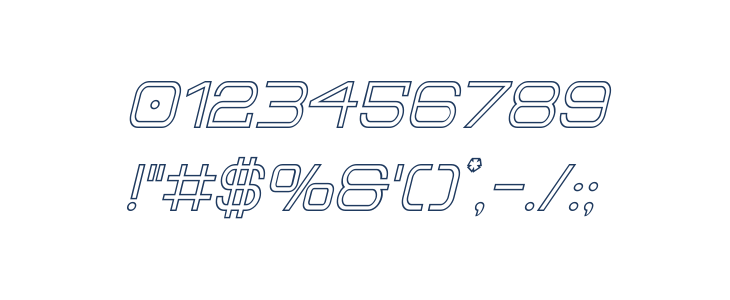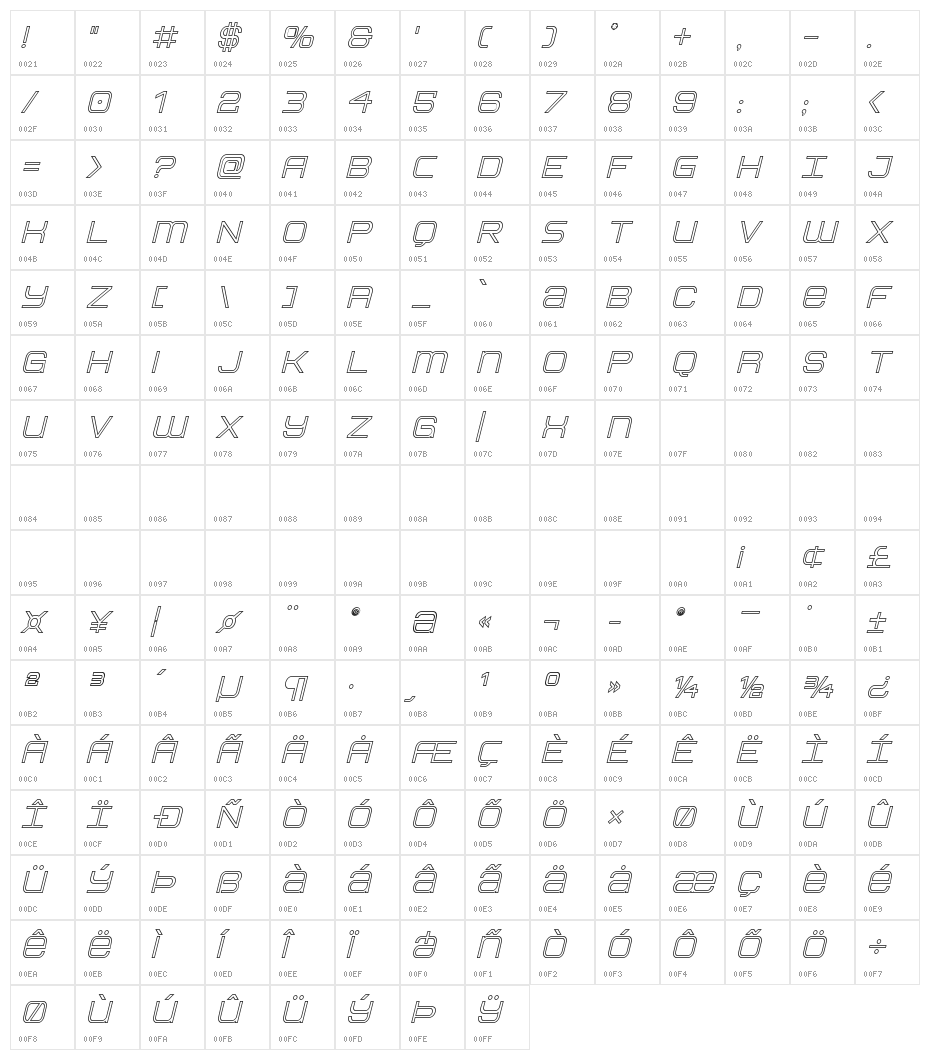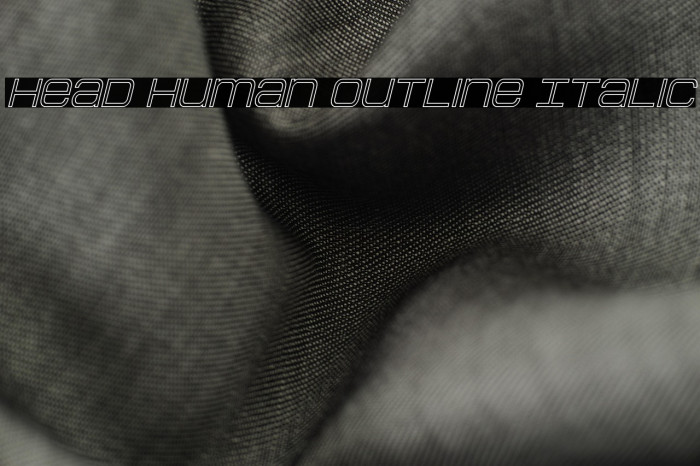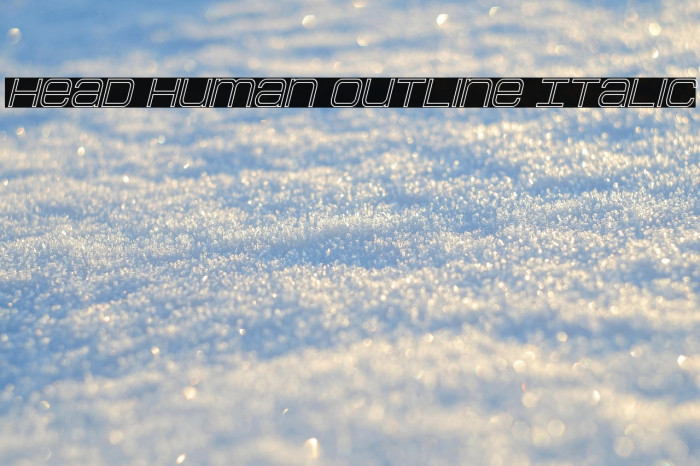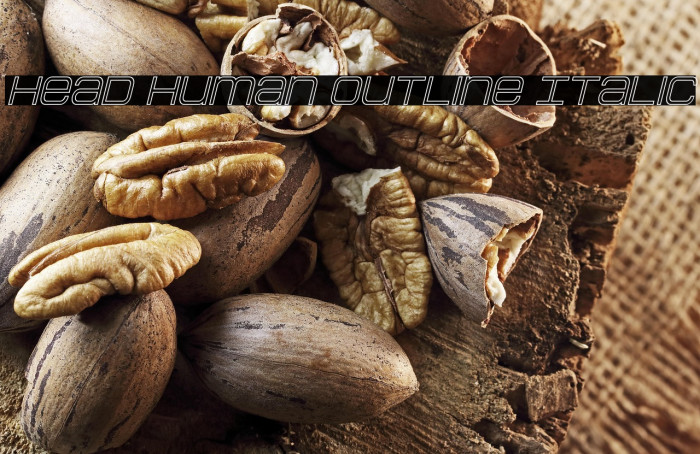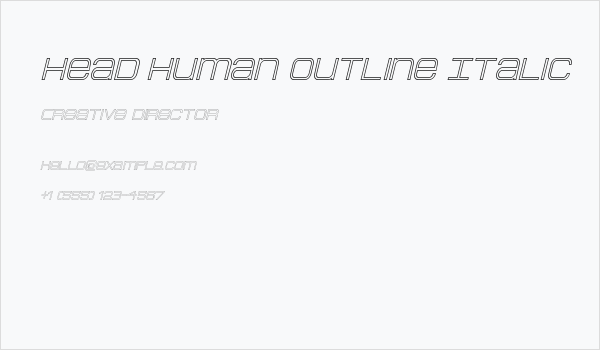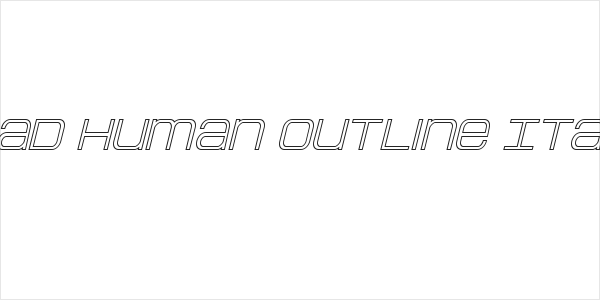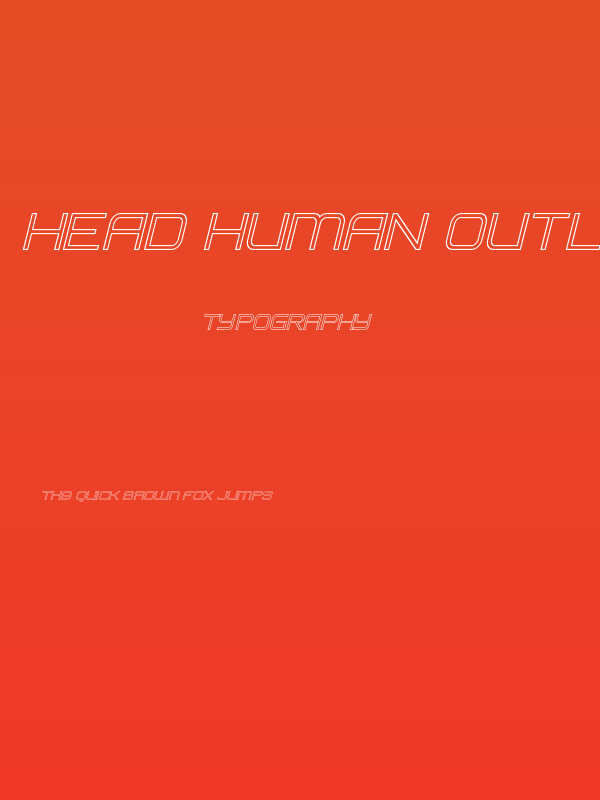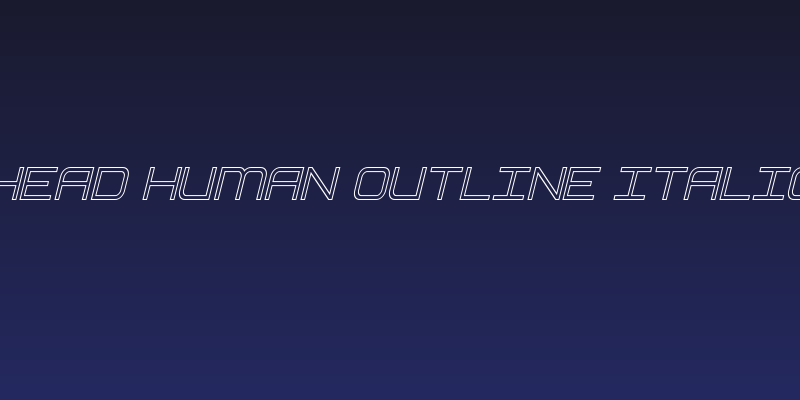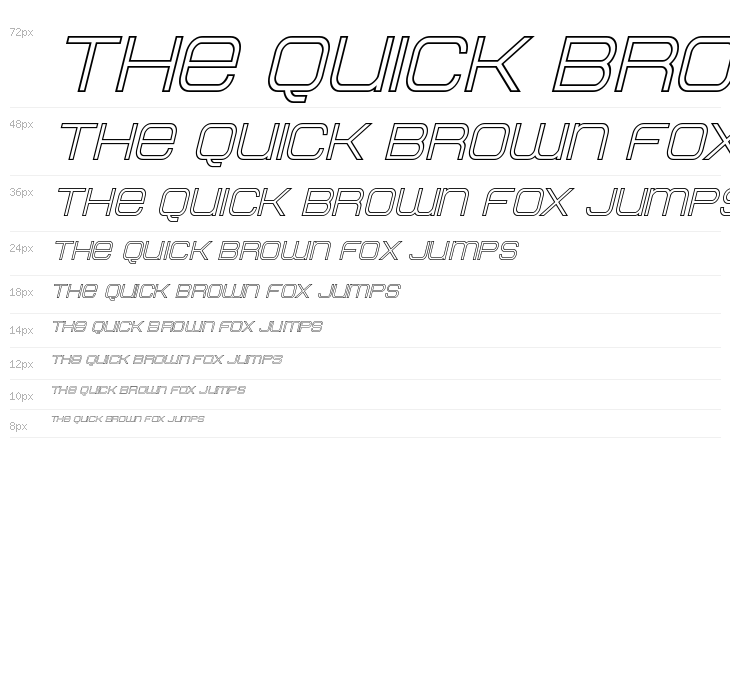
Head Human Outline Italic Font
Head Human Outline Italic Description
This font features a modern, geometric design with a distinct italic slant, giving it a dynamic and forward-moving appearance. The characters are outlined, creating a hollow effect that adds a sense of depth and dimension. The uppercase and lowercase letters maintain a consistent style, with clean lines and sharp angles. The numerals and special characters are designed to match the overall aesthetic, ensuring a cohesive look across all text. This font's unique outline style makes it stand out, making it suitable for creative and eye-catching designs.
| Proposed Projects | Ideal for futuristic branding, tech-related projects, posters, and digital media where a modern and distinctive look is desired. |